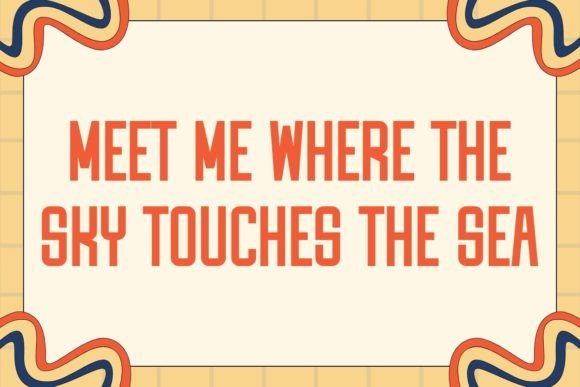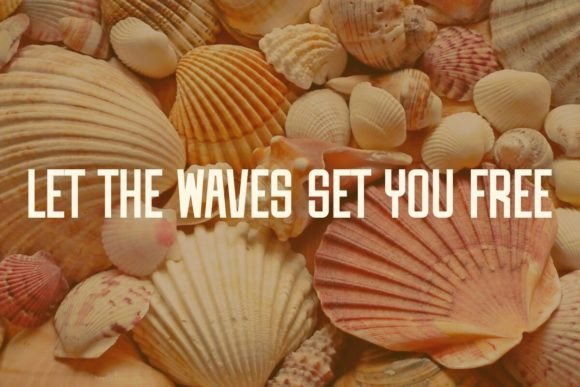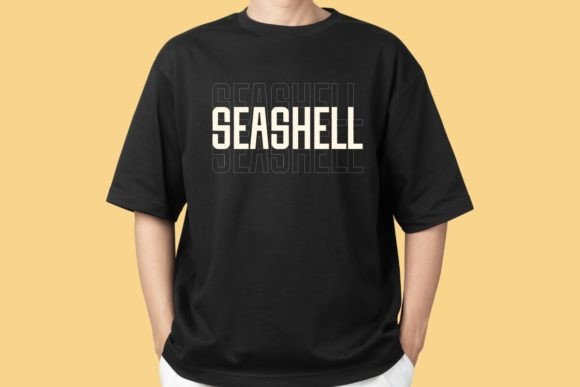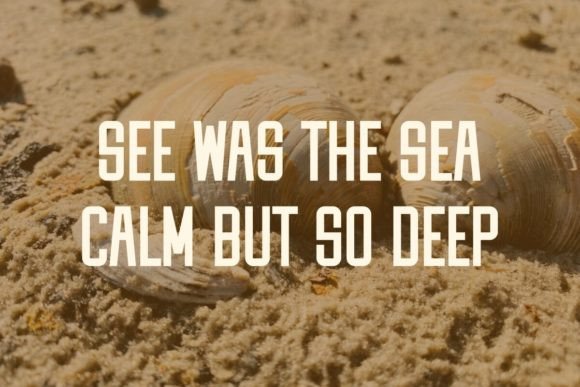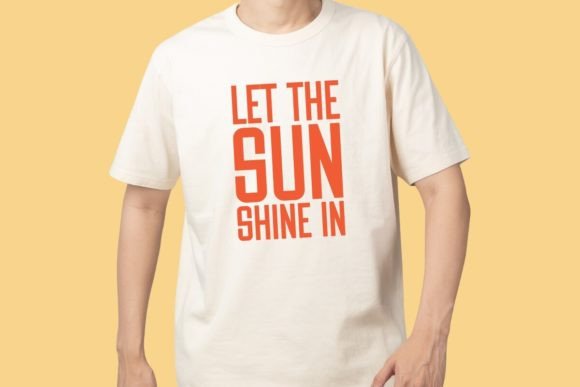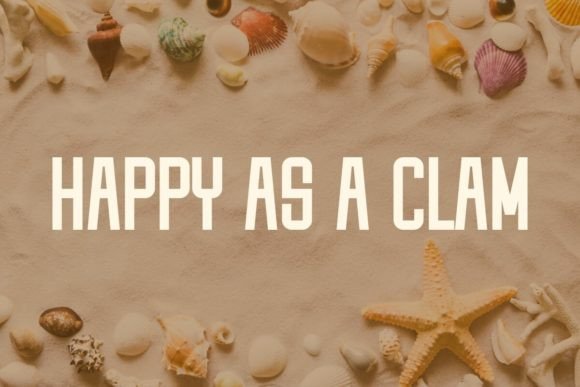
Meet Clamshell: The Timeless Sophistication of a Condensed Vintage Sans-Serif Font
In the world of typography, fonts play a crucial role in conveying the message and aesthetic of a design. For designers and crafters looking to add a touch of classic elegance to their work, Clamshell is an excellent choice. This condensed vintage sans-serif font embodies the essence of timeless sophistication, making it perfect for creating impactful headlines, retro posters, and stylish branding.
The Characteristics of Clamshell Font
Clamshell is a condensed vintage sans-serif font that boasts clean lines and a compact design. Its sleek and streamlined appearance makes it ideal for use in a variety of design applications, from print materials to digital media. The font’s classic and elegant feel is reminiscent of a bygone era, evoking a sense of nostalgia and sophistication.
Uses of Clamshell Font
Clamshell’s versatility makes it an excellent choice for a wide range of design projects. Some of the most popular uses for this font include:
- Headlines and Titles: Clamshell’s bold and condensed design makes it perfect for creating eye-catching headlines and titles that demand attention.
- Retro Posters: The font’s vintage feel and classic elegance make it an excellent choice for creating retro-style posters that evoke a sense of nostalgia.
- Branding and Logo Design: Clamshell’s sophisticated and timeless design makes it an excellent choice for creating stylish branding and logos that convey a sense of elegance and refinement.
- Packaging Design: The font’s compact design and classic feel make it perfect for use in packaging design, where space is often limited.
Benefits of Using Clamshell Font
There are several benefits to using Clamshell font in your design projects. Some of the most significant advantages include:
- Timeless Sophistication: Clamshell’s classic and elegant design ensures that your work will remain timeless and sophisticated, even as design trends come and go.
- Versatility: The font’s versatility makes it an excellent choice for a wide range of design applications, from print materials to digital media.
- Easy to Read: Clamshell’s clean lines and compact design make it easy to read, even at small sizes.
- Unique and Distinctive: The font’s vintage feel and classic elegance make it a unique and distinctive choice that will help your work stand out from the crowd.
Tips for Using Clamshell Font
To get the most out of Clamshell font, here are a few tips to keep in mind:
- Use it Sparingly: While Clamshell is a beautiful font, it’s best used sparingly to avoid overwhelming the reader.
- Pair it with Other Fonts: Clamshell pairs well with other fonts, so don’t be afraid to experiment with different combinations to find the perfect look for your design.
- Experiment with Different Sizes: Clamshell’s compact design makes it perfect for use at small sizes, but it can also be used at larger sizes to create a bold and dramatic effect.
In conclusion, Clamshell is a timeless and sophisticated condensed vintage sans-serif font that is perfect for designers and crafters looking to add a touch of classic elegance to their work. Its clean lines, compact design, and versatile nature make it an excellent choice for a wide range of design applications. Whether you’re creating headlines, retro posters, or stylish branding, Clamshell is a font that is sure to impress.
Add a Touch of Classic Elegance to Your Designs with Clamshell